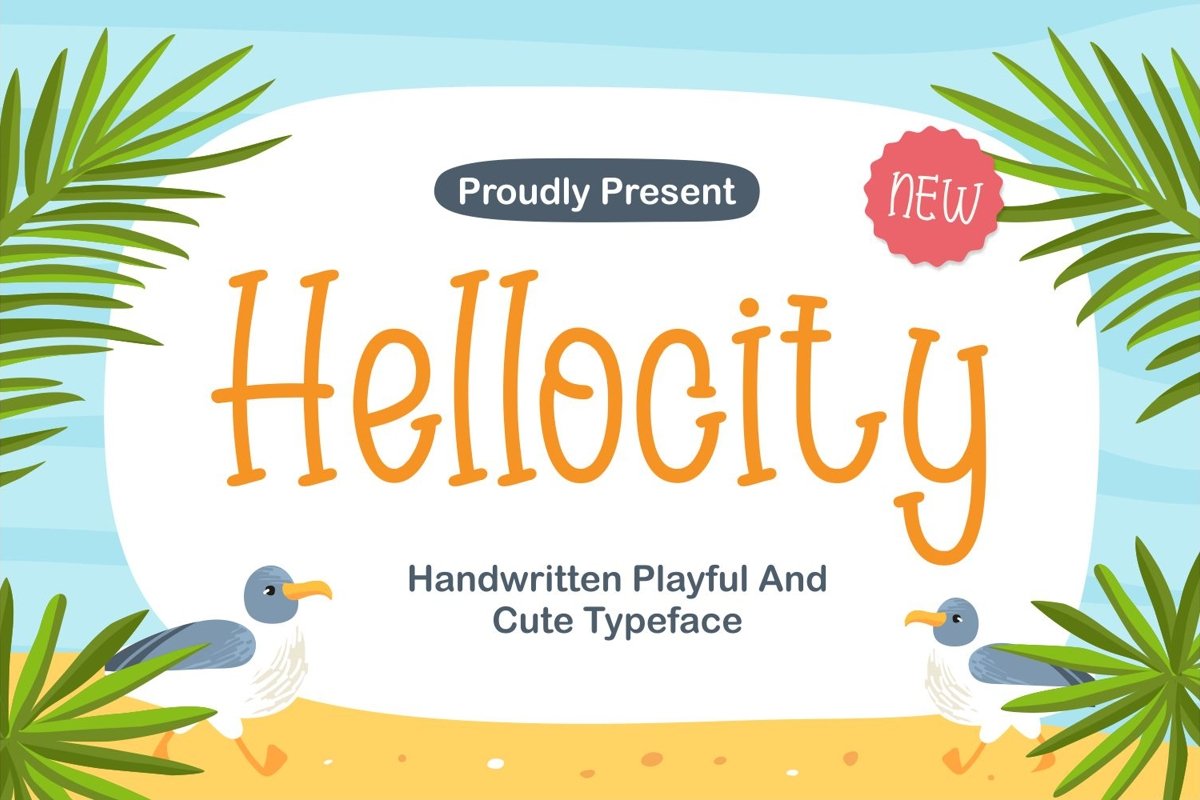
Hellocity is cute serif display with natural flow handwritten style. It matches applies in some designs such as the logotype, brand, packaging, quotes, cute poster, kids shirt, children book, pillow and more custom design. The features uppercase, lowercase, numeral, punctuation & symbol, multilingual support, PUA encoded (fully accessible without additional design software). What includes : • Hellocity.ttf • Hellocity.otf